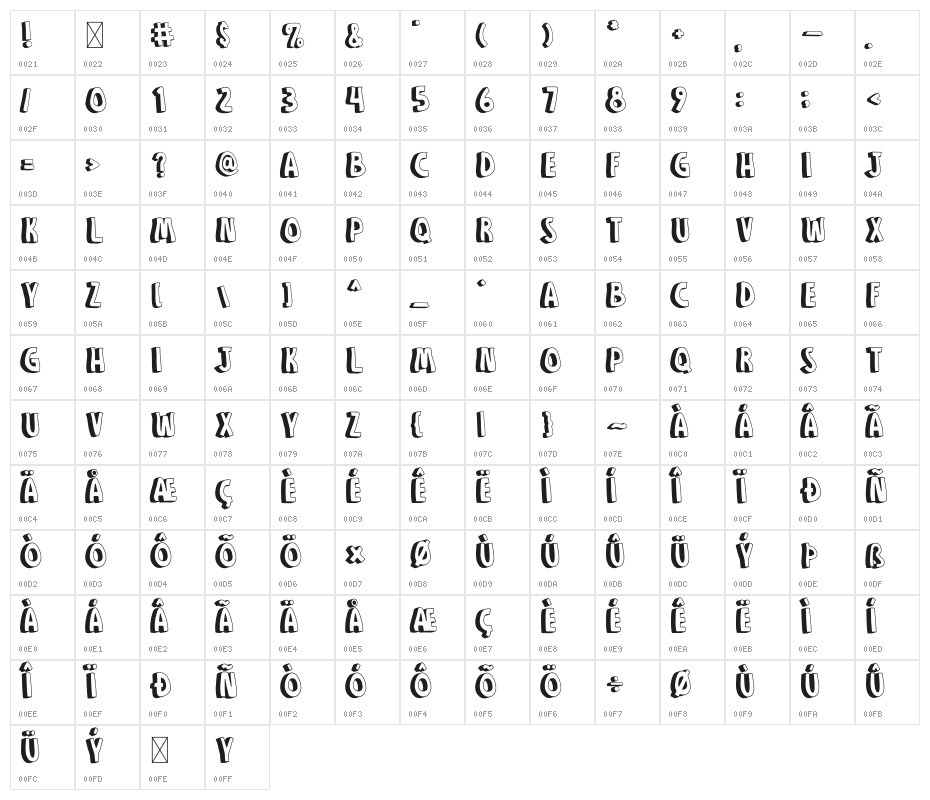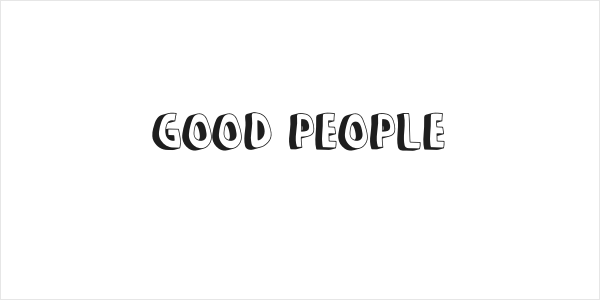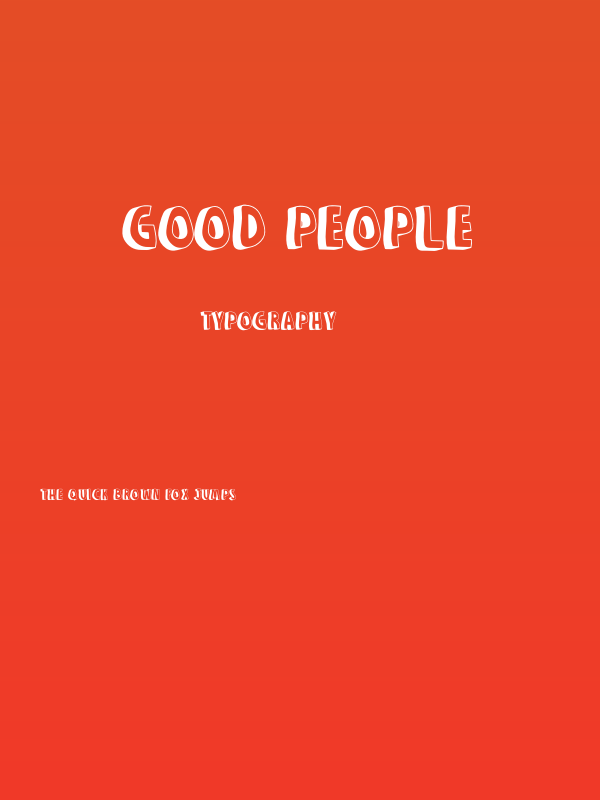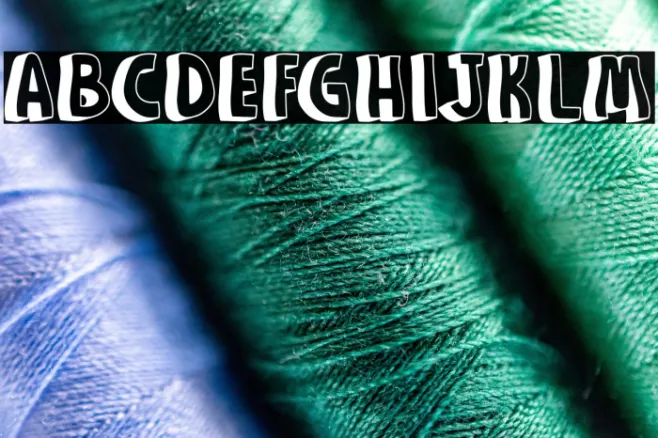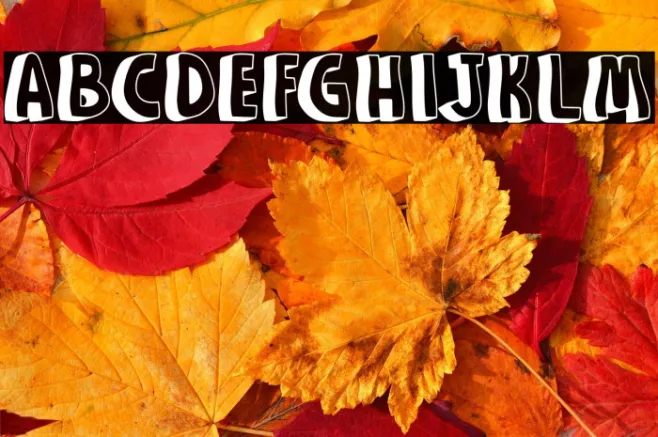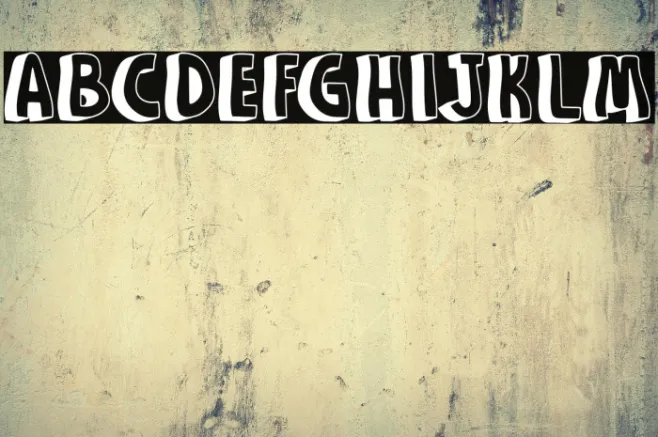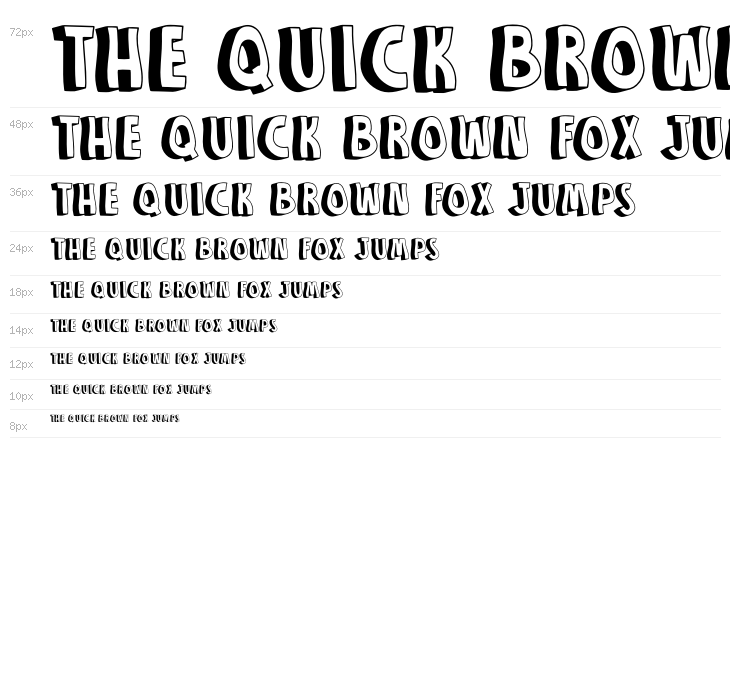
GOOD PEOPLE Font
GOOD PEOPLE Description
This font features a bold, playful style with a three-dimensional effect that gives each character a shadowed appearance. The letters are uppercase and lowercase, with a consistent thickness that adds to the boldness of the design. The numbers and special characters maintain the same playful and dynamic style, making them stand out with their unique, chunky forms. The font's overall look is both modern and fun, suitable for projects that require a lively and engaging typeface. The characters are well-spaced, allowing for readability while maintaining a compact appearance.
| Overall Style | Playful, Modern |
| Use Case | Headlines, Posters, Branding |
| Proposed Projects | Ideal for children's books, comic strips, playful branding, and eye-catching posters. |